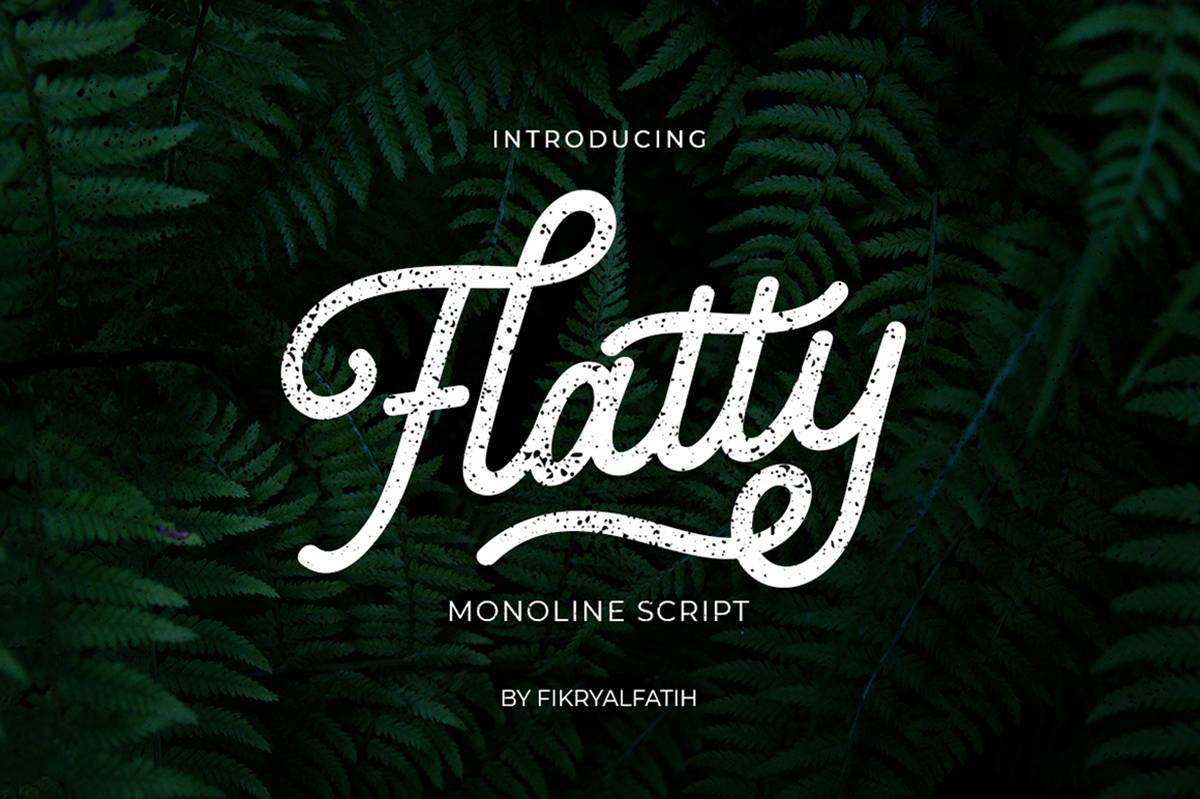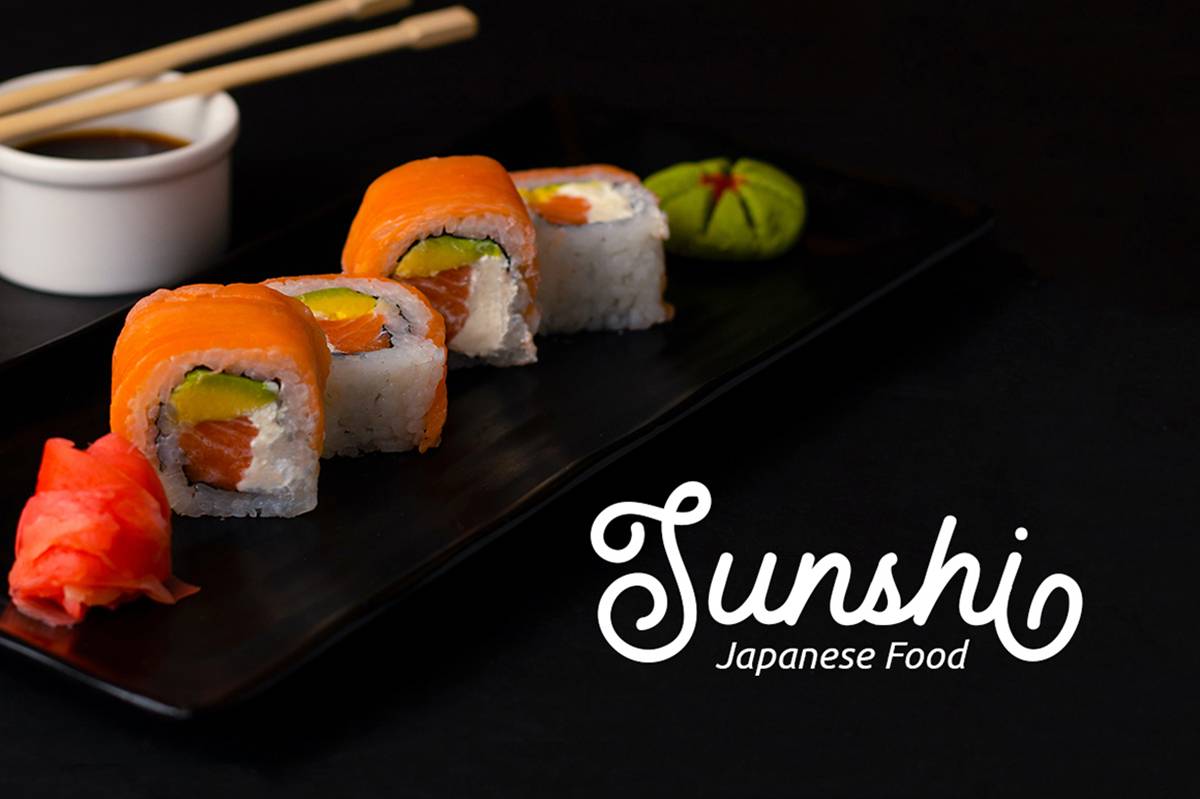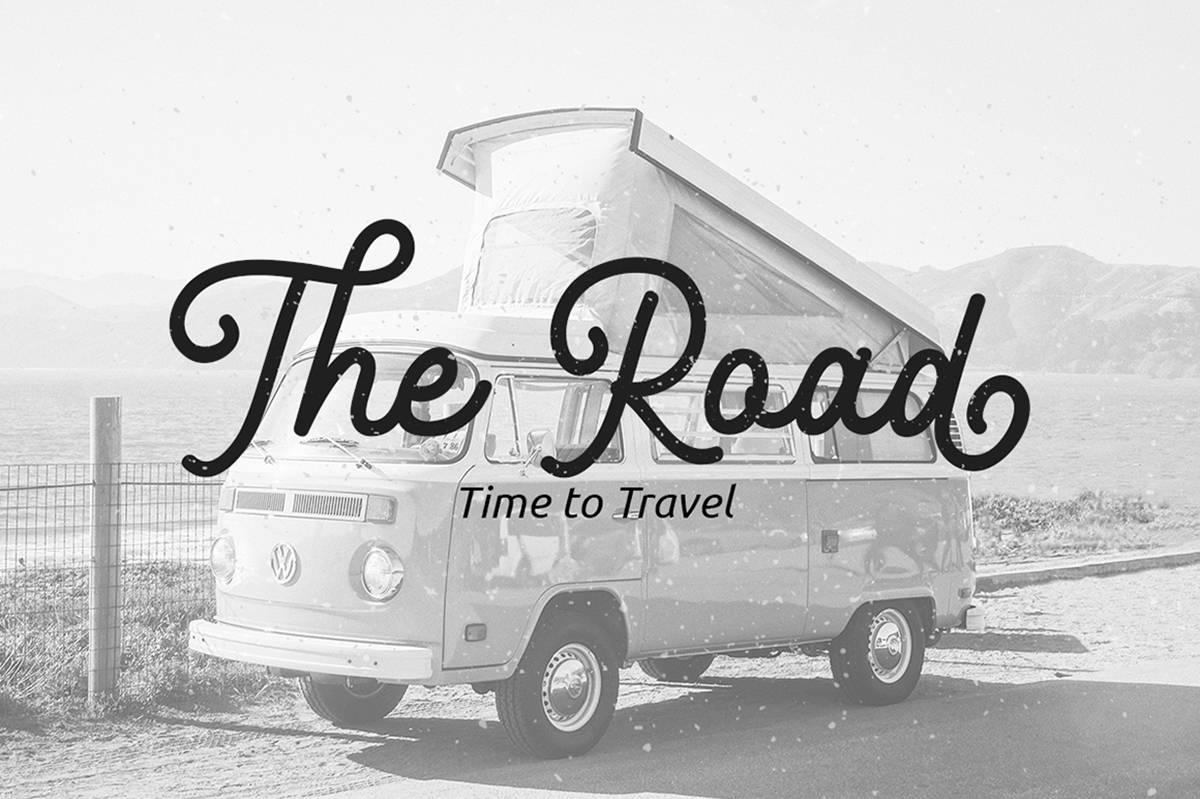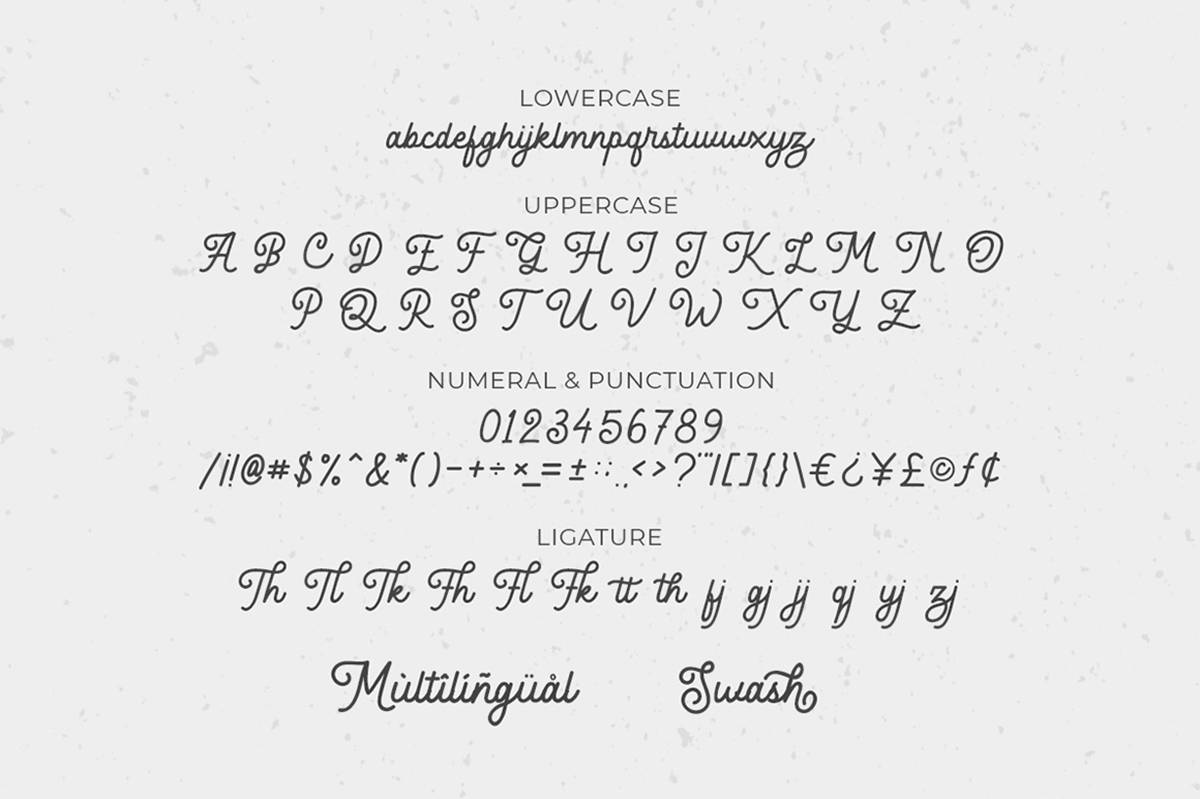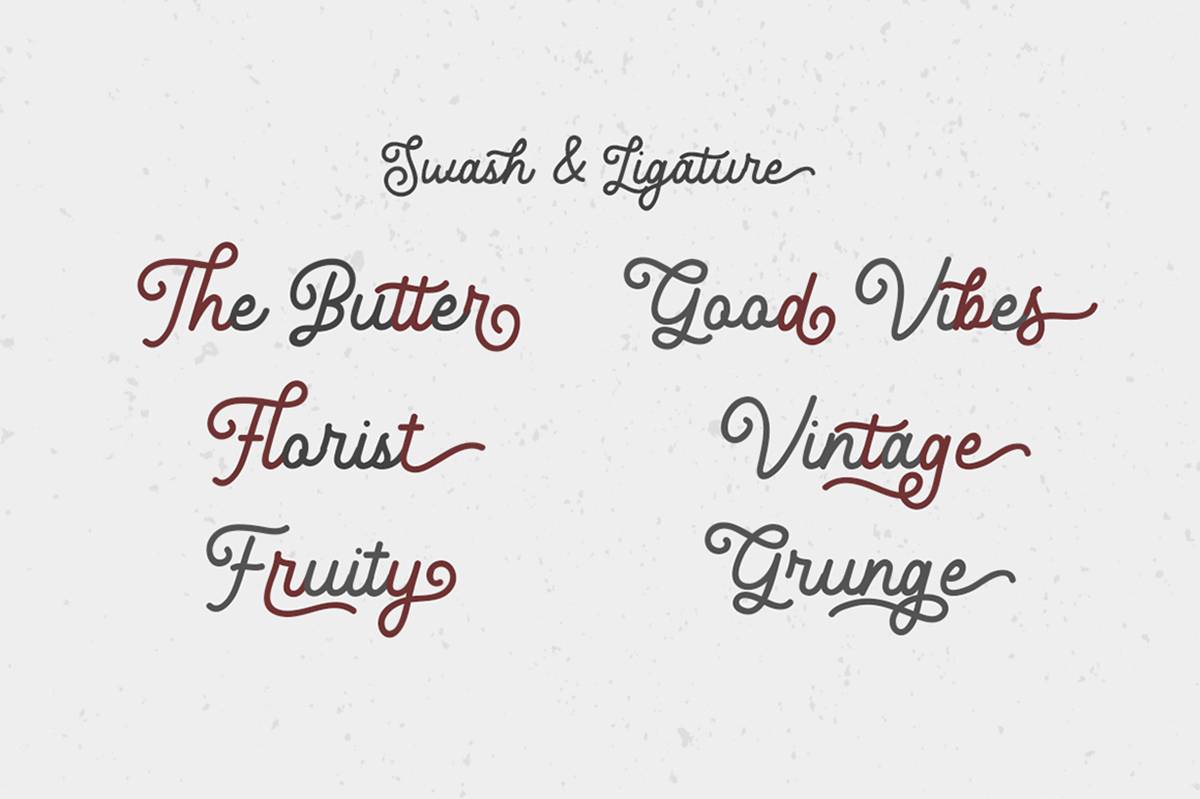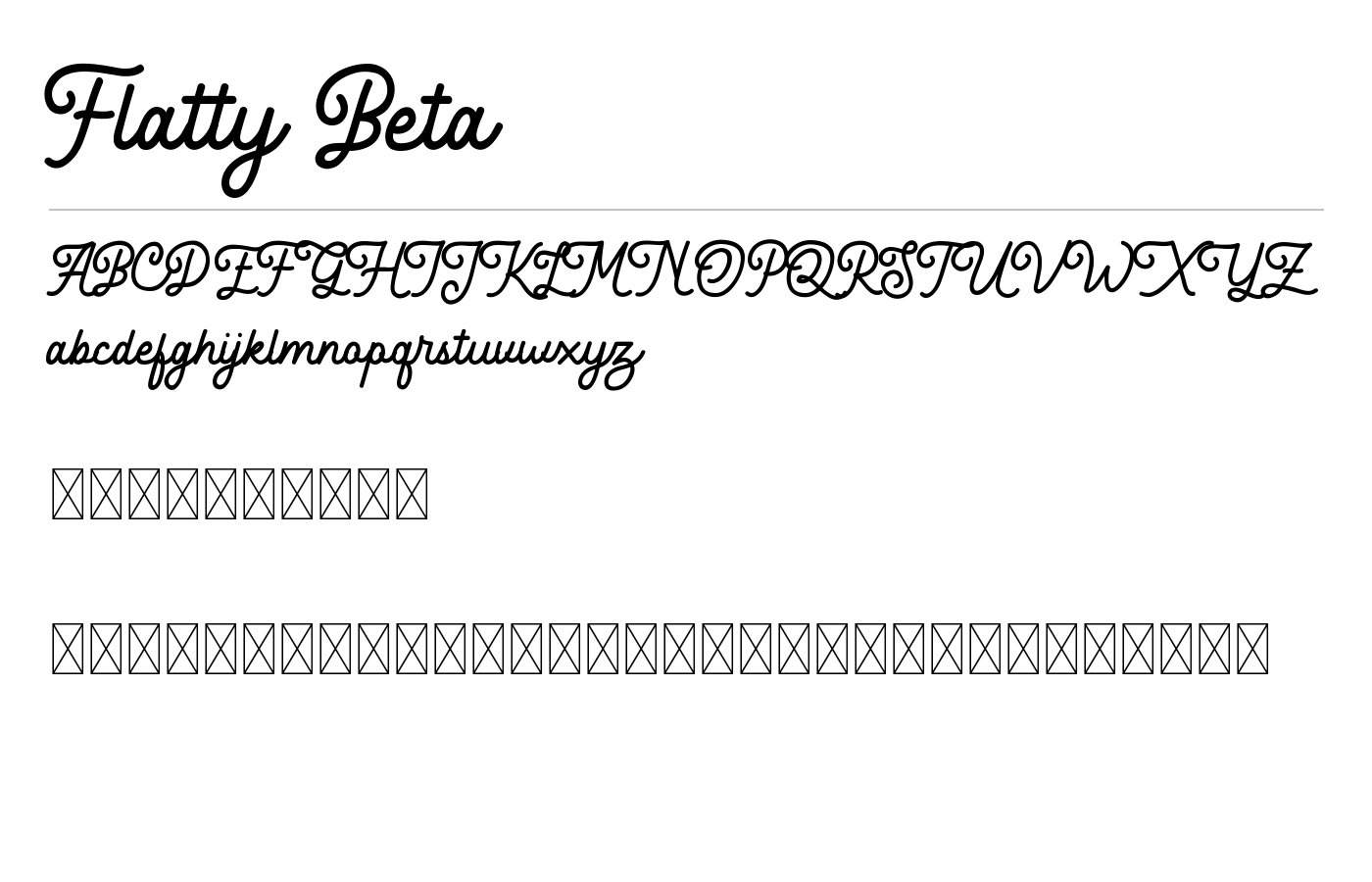
Flatty Font is a charming, cursive script typeface with a smooth, consistent weight and rounded strokes that give it a friendly, approachable feel. Its elegant, flowing characters and medium x-height make it perfect for branding, invitations, and headlines where a touch of warmth and personality is desired. This font works well in designs that aim for a casual yet refined style, adding a handcrafted, stylish flair to any project.
Flatty Font
| Font family | Flatty Font |
| Designer | fikryalfatih |